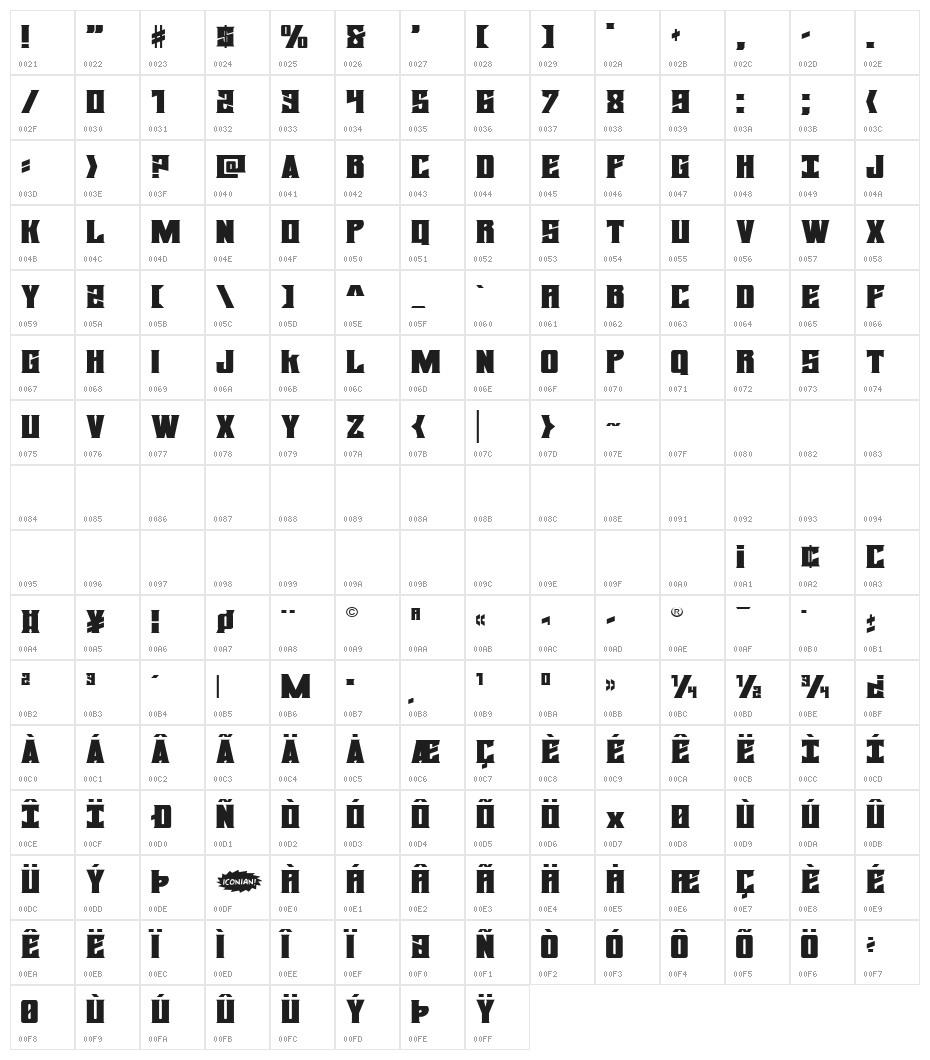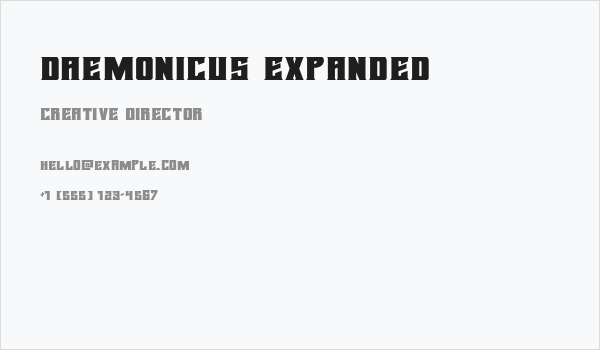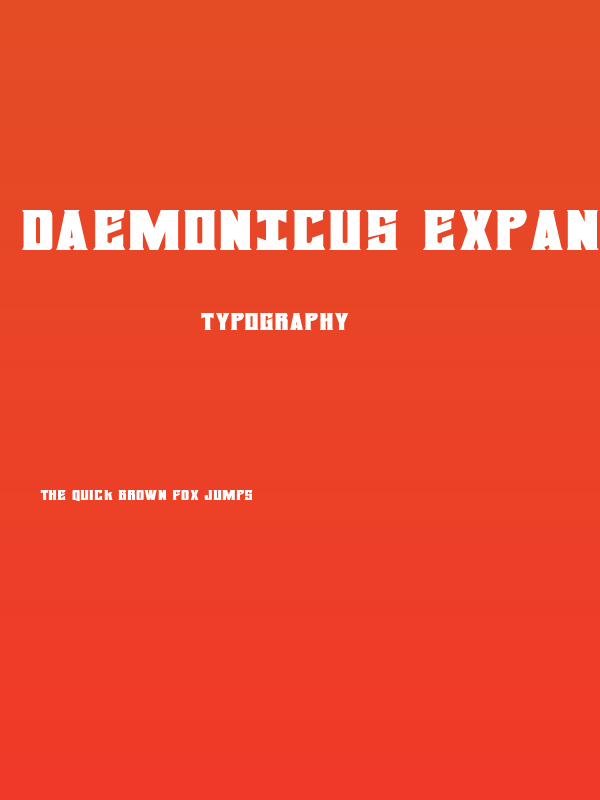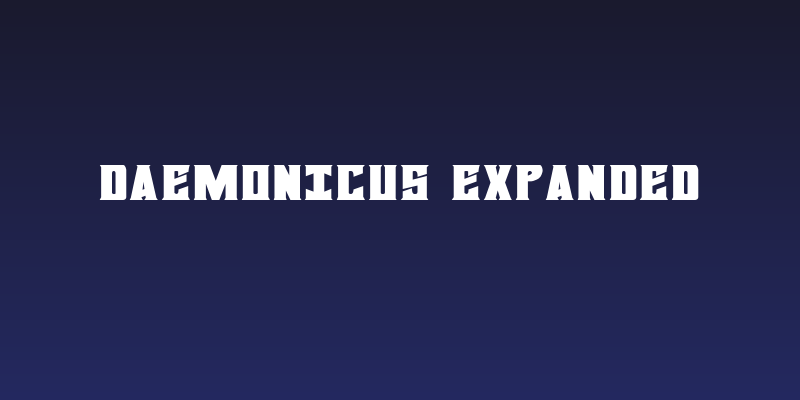
Daemonicus Expanded Font
Daemonicus Expanded Description
This font features a bold and striking design with a strong presence. Its angular and sharp edges give it a distinctive, aggressive look, reminiscent of gothic or medieval styles. The characters are wide and expanded, providing a sense of power and authority. The uppercase and lowercase letters maintain a consistent style, with the uppercase being particularly dominant. The numbers and special characters follow the same bold and angular design, ensuring uniformity across all elements. This font is ideal for making a statement, with its high contrast and dramatic appearance.
| Overall Style | Gothic, Medieval |
| Proposed Projects | Ideal for projects requiring a strong visual impact, such as posters, album covers, or branding for edgy or alternative products. |